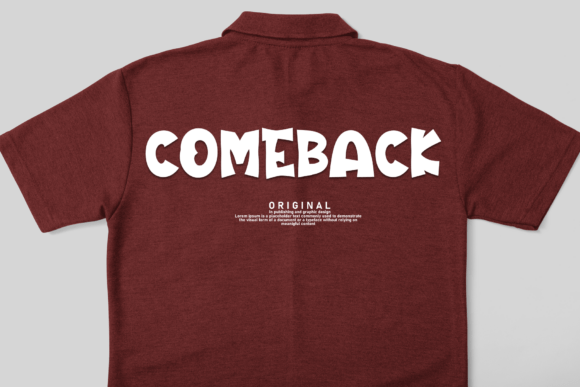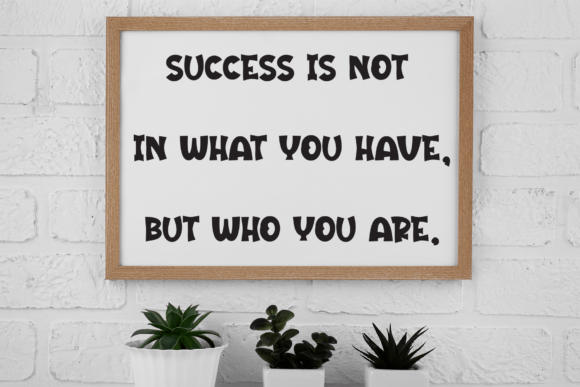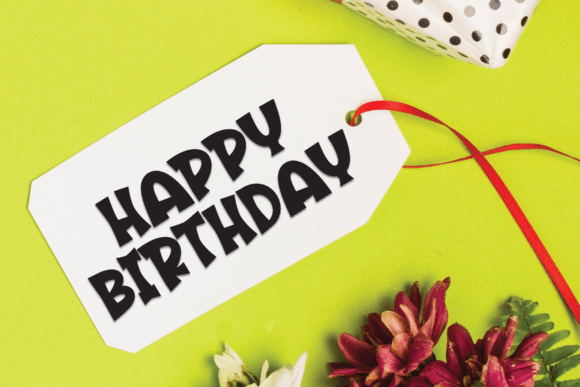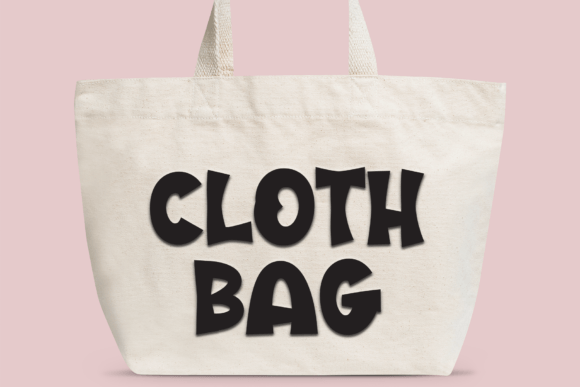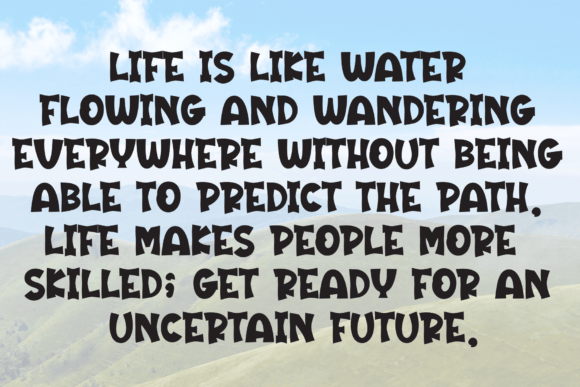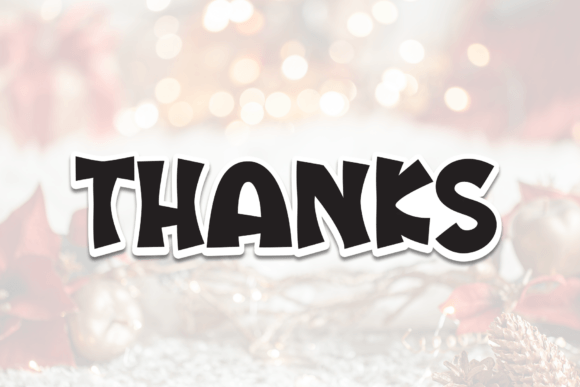
Introduction to Christmas Winterday Font
Introducing our charming handwritten display font that radiates warmth and friendliness.
Perfectly suited to add a touch of charisma, it magnificently complements wedding invitations, greeting cards, and any design that could benefit from a sprinkle of fun Wrapped in sweetness, this adorable font is an embodiment of festivity and joy, ready to breathe life into your creative endeavors.
Key Features of Christmas Winterday Font
Why Choose Christmas Winterday Font?
Christmas Winterday Font offers exceptional quality and versatility, making it a valuable addition to your design toolkit. Whether you’re creating for personal projects or commercial use, Christmas Winterday Font delivers professional results.